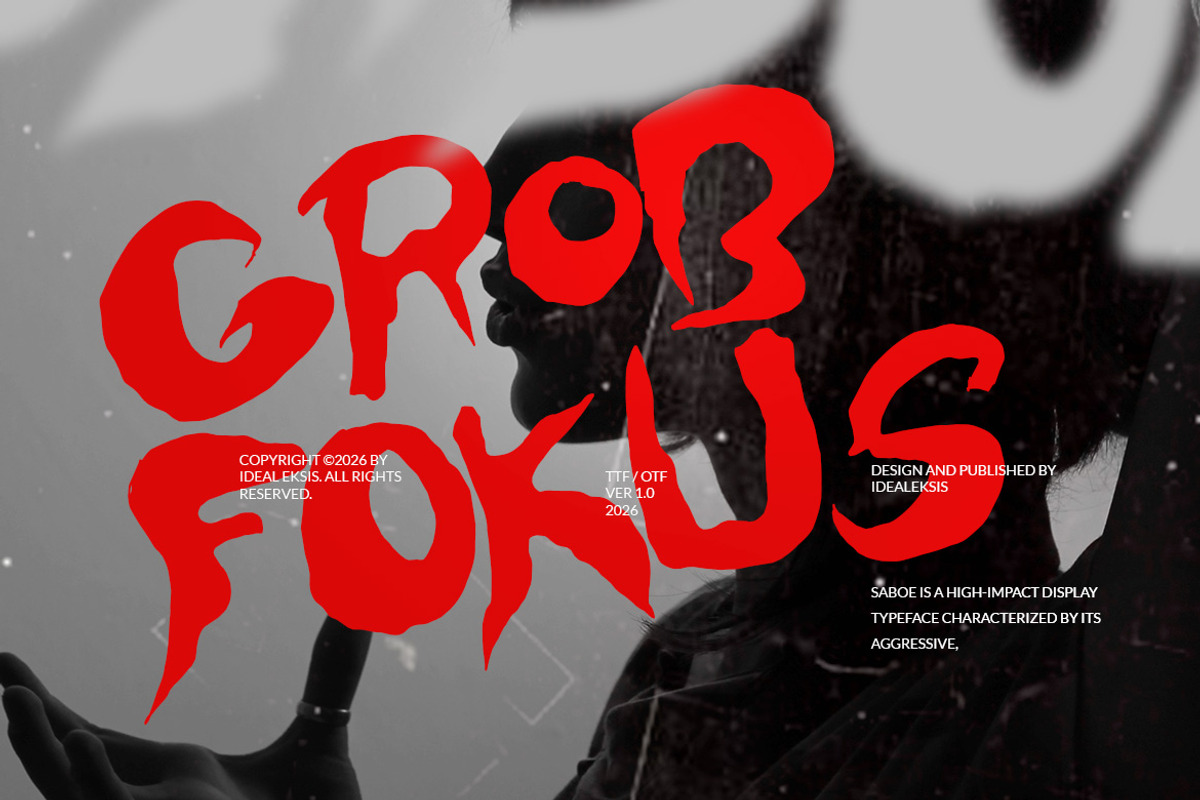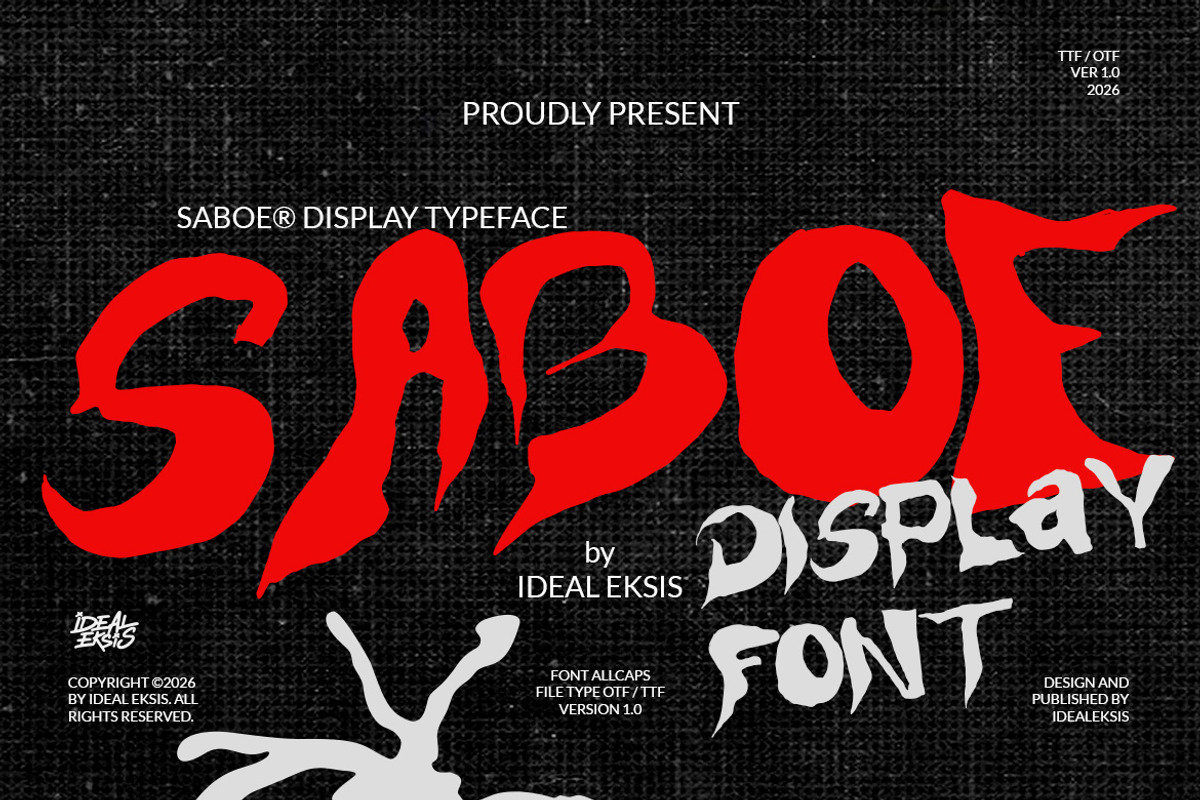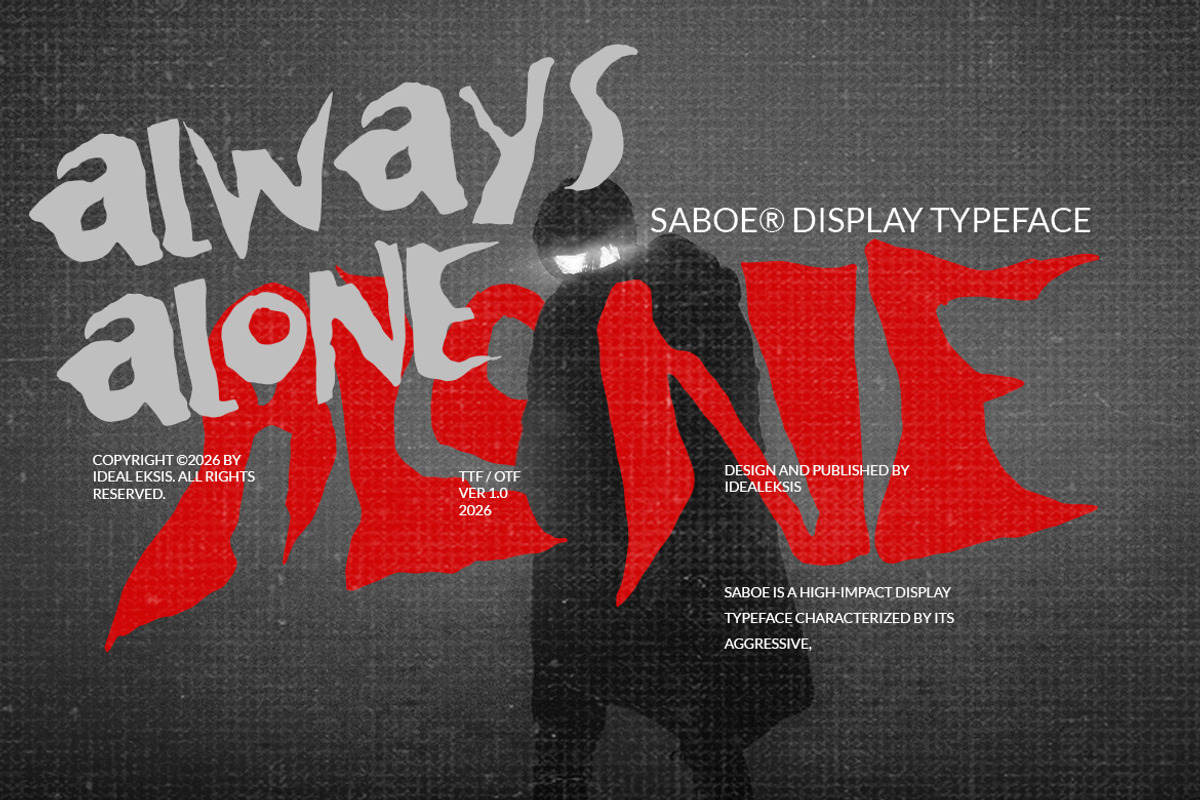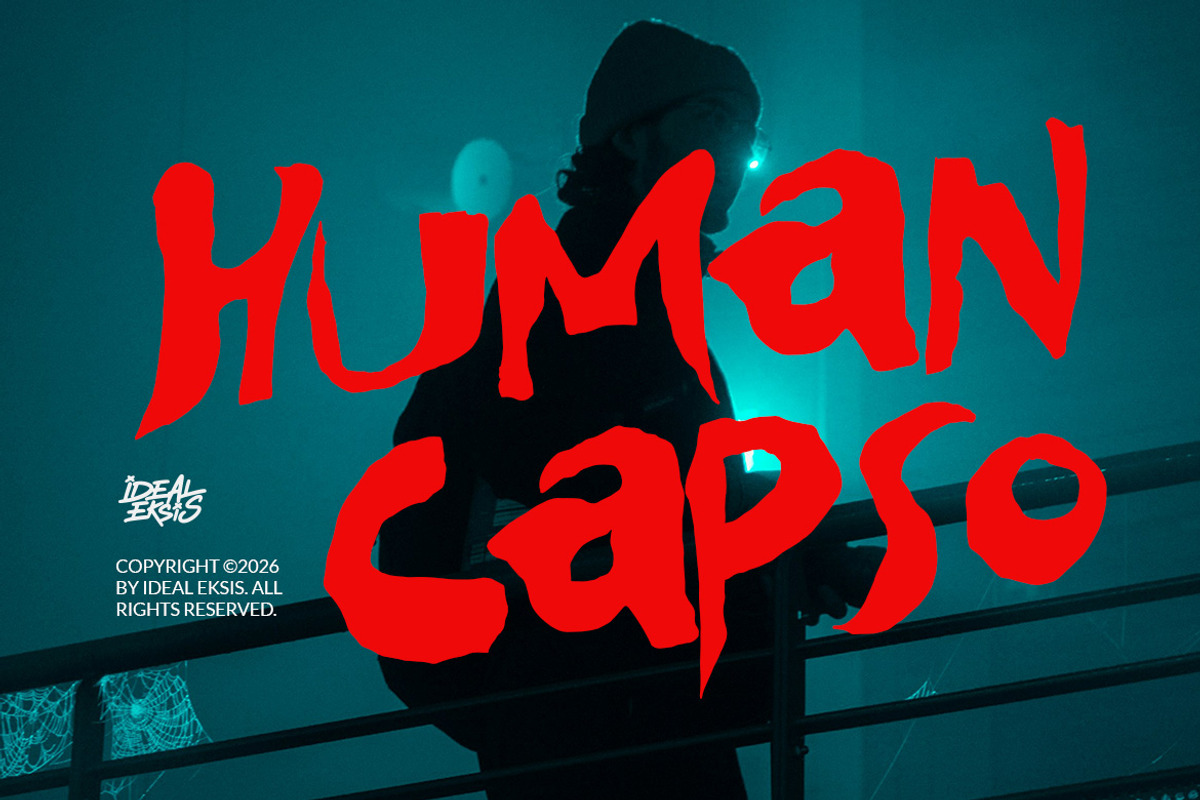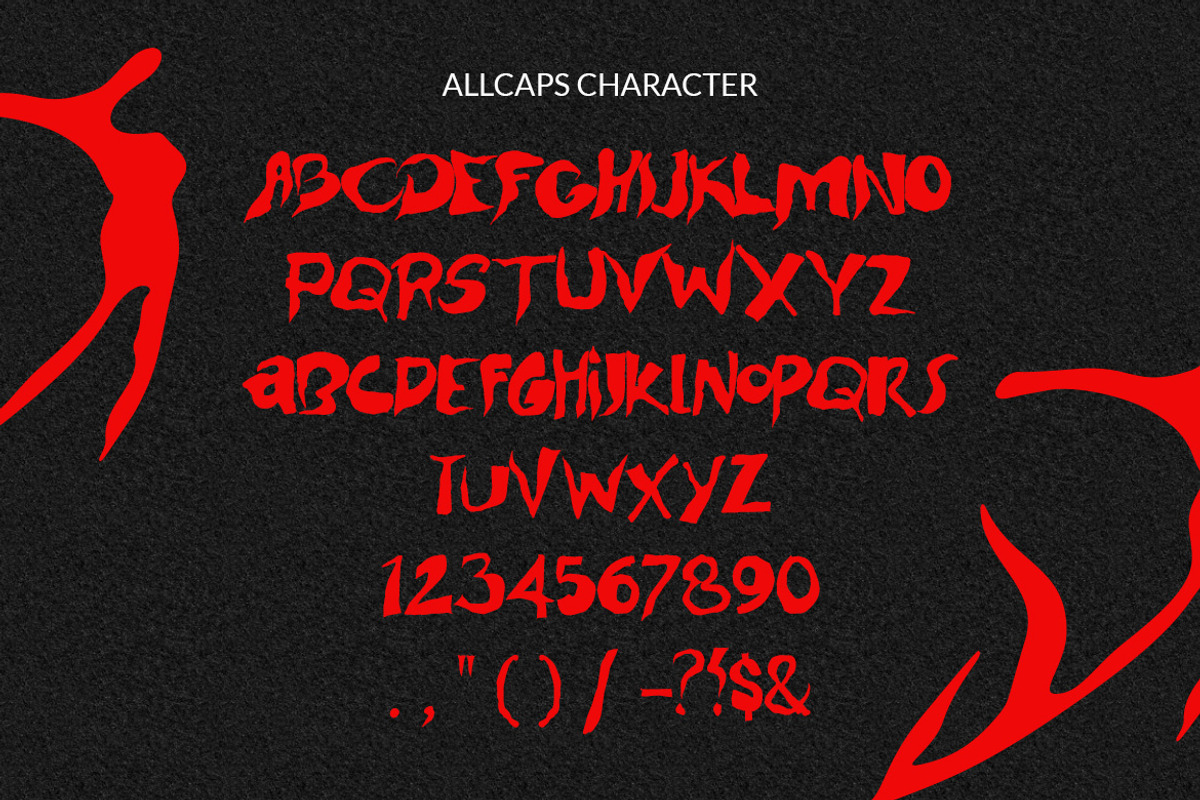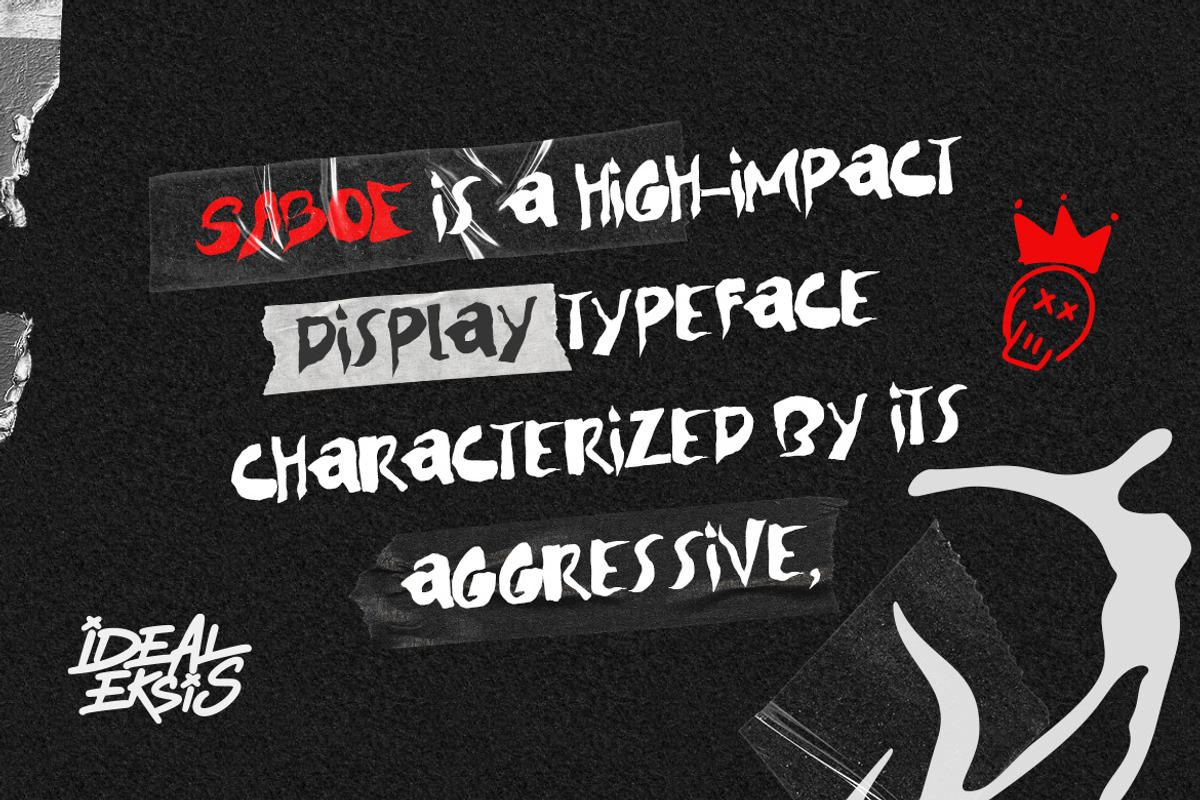
Saboe
Saboe is a high-impact display typeface characterized by its aggressive, jagged letterforms and raw, hand-drawn aesthetic. Each glyph features irregular, sharp terminals and varying stroke weights that create a sense of chaotic energy and movement. The letterforms possess a brush-like quality with distressed edges, making it ideal for bold headlines, poster designs, and branding projects that require a gritty, rebellious vibe. Its all-caps structure ensures maximum readability while maintaining a powerful visual presence against dark, textured backgrounds.
- Uppercase (All Caps)